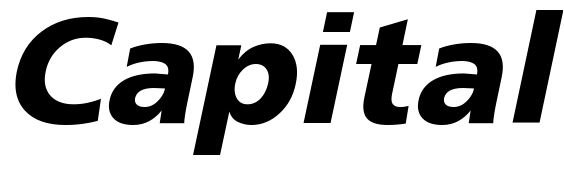
Capital One Font
FinanceCapital One is a diversified financial services company headquartered in the United States, offering credit cards, banking, and lending services to consumers and businesses.
The Capital One logo features two fonts: a custom-designed sans serif font, likely based on Frutiger Black Italic, for the "Capital" part, and the classic serif font Minion Italic by Robert Slimbach for the "One" part.